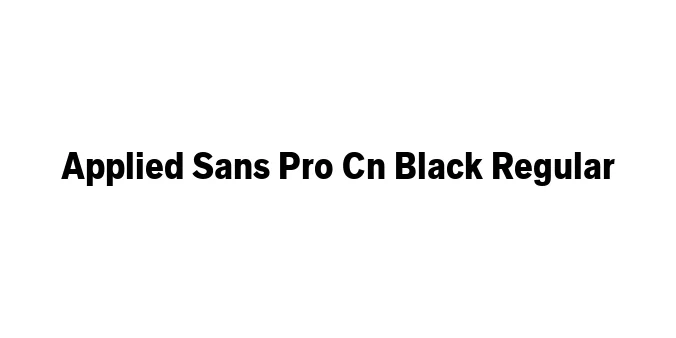
Applied Sans Pro Cn Black Regular
Designed by Linotype Design Studio
Applied Sans Pro Cn Black Regular is a highly functional sans-serif typeface designed to meet the rigorous demands of modern technical documentation and corporate identity. Developed as part of the broader Applied Sans family, this condensed black weight focuses on delivering maximum visual impact while maintaining a compact horizontal footprint, making it an essential tool for designers working with limited spatial constraints.
The typeface is distinguished by its clean, neutral geometry and exceptional legibility. Its robust stroke weights and precise proportions allow it to stand out in high-pressure environments such as industrial signage, architectural wayfinding, and digital interfaces. The 'Pro' designation ensures a wide range of character support, making it a versatile choice for international branding and professional editorial design.
Applied Sans Pro Cn Black Regular Best Uses
Used for bold, space-saving headlines in magazine layouts and news headers.
Excellent for creating strong, authoritative logos for tech and industrial firms.
Perfect for high-visibility wayfinding and architectural environmental graphics.
Ideal for promotional posters and social media banners that require a heavy, punchy aesthetic.